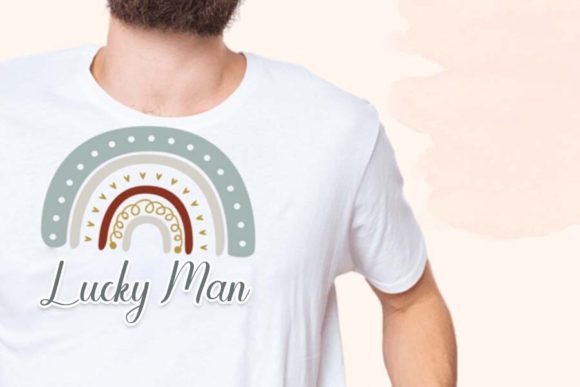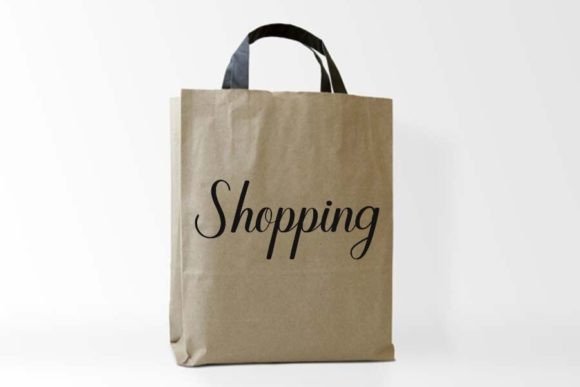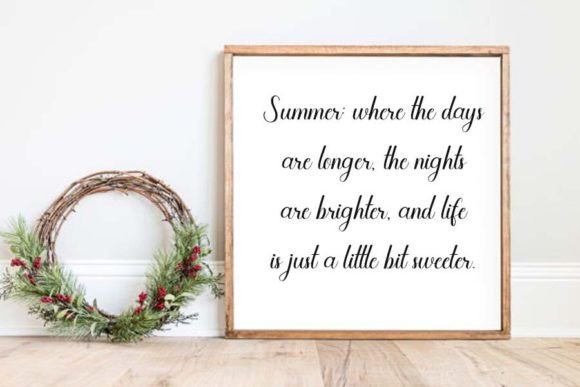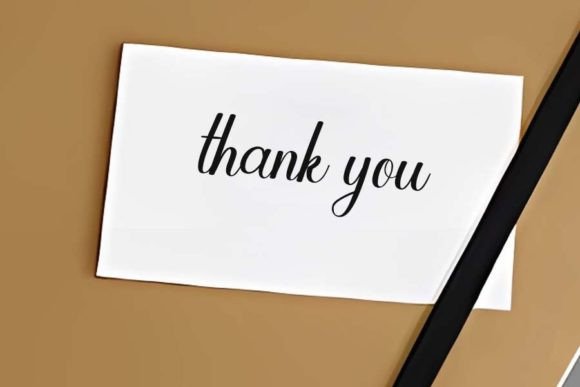
Dragonfly Font: Elevate Your Designs with Elegance and Timeless Style
Are you on the hunt for a font that exudes delicacy, elegance, and a touch of whimsy? Look no further than the Dragonfly Font, a beautiful handwritten font that is sure to capture your heart. With its incredibly distinct and timeless style, Dragonfly is the perfect addition to your favorite design projects. Whether you’re a seasoned designer or a crafty DIY enthusiast, this enchanting font is sure to inspire you to create something truly spectacular.
The Charm of Dragonfly Font
Dragonfly Font is a delicate, elegant, and flowing handwritten font that boasts a unique charm that sets it apart from other fonts. Its intricate and swirling lines evoke a sense of movement and fluidity, making it perfect for designs that require a touch of dynamism. The font’s classic and timeless style ensures that it will never go out of fashion, making it a valuable addition to your design arsenal.
Dragonfly Font is an incredibly versatile font that can be used for a wide range of projects. Whether you’re designing a:
- Wedding invitation or announcement
- Branding or packaging design
- Social media graphic or post
- Blog or website header
- DIY craft or scrapbooking project
This beautiful font is sure to add a touch of elegance and sophistication to your design. Its flowing lines and delicate curves make it perfect for creating eye-catching headlines, titles, and quotes that will leave a lasting impression on your audience.
Why Choose Dragonfly Font?
So, what sets Dragonfly Font apart from other fonts? Here are just a few reasons why designers and crafters love this beautiful font:
- Unique and distinctive style: Dragonfly Font boasts a one-of-a-kind style that will set your designs apart from the crowd.
- Elegant and sophisticated: This font exudes elegance and sophistication, making it perfect for designs that require a touch of refinement.
- Timeless appeal: Dragonfly Font’s classic style ensures that it will never go out of fashion, making it a valuable addition to your design collection.
- Easy to read: Despite its intricate lines and curves, Dragonfly Font is surprisingly easy to read, making it perfect for body text and captions.
Tips for Using Dragonfly Font
To get the most out of Dragonfly Font, here are a few tips to keep in mind:
- Use it as a headline font: Dragonfly Font is perfect for creating eye-catching headlines and titles that will grab your audience’s attention.
- Pair it with a simple font: For body text and captions, pair Dragonfly Font with a simple, easy-to-read font to create visual contrast and hierarchy.
- Experiment with colors and textures: Dragonfly Font looks stunning in a variety of colors and textures, so don’t be afraid to experiment and find the perfect combination for your design.
| Font Name | Dragonfly Font |
| Author | Yoni Art |
In conclusion, Dragonfly Font is a beautiful, elegant, and timeless handwritten font that is perfect for designers and crafters looking to add a touch of whimsy and sophistication to their projects. With its unique and distinctive style, Dragonfly is sure to capture your heart and inspire you to create something truly spectacular. So why wait? Fall in love with Dragonfly Font today and elevate your designs to new heights!